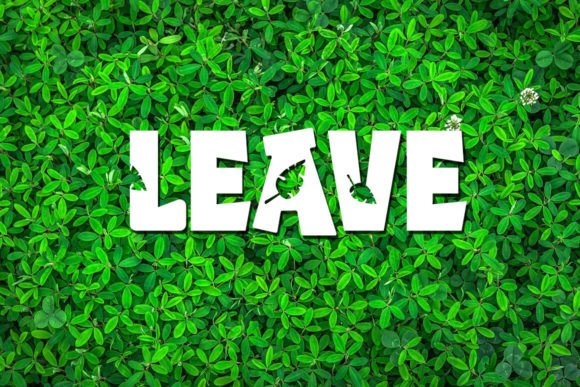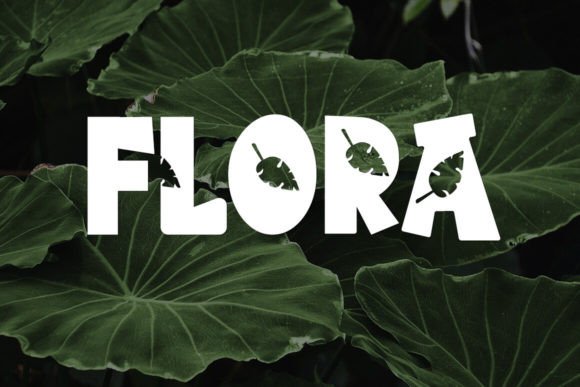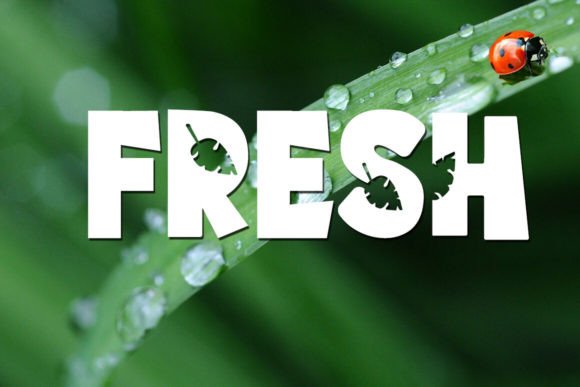
Introduction to Green Nature Font
Remember that moment when you stumbled upon the perfect font to elevate your design project? The one that just clicked, making your creative vision come to life? For many designers, that moment is exactly what they’re searching for, and we’re excited to share it with you. Say hello to the Green Nature Font, a delightful typeface that’s about to become your go-to design resource.
As a designer, you know how crucial it is to have a high-quality font that can bring your creative project to life. The Green Nature Font is just that – a beautifully crafted, crisp, and stylish typeface that’s perfect for a wide range of projects, from formal to casual. With its transparent background and fresh aesthetic, this font is a game-changer for designers who want to add a touch of gaiety to their designs.
Key Features of Green Nature Font
- High-quality, eco-friendly design resource ideal for creative projects, such as posters, flyers, and websites.
- Unique, hand-drawn design with a natural and earthy feel, perfect for branding and marketing materials.
- Features a transparent background, allowing for seamless integration with any background image or color.
- Designed to be highly legible and easy to read, making it perfect for body text and headings in creative projects.
Honest Review: Green Nature Font
I recently stumbled upon the Green Nature Font, and I have to say it’s been a great addition to my design resource collection. The font’s high quality is evident in its crisp lines and natural textures, making it perfect for creative projects that require a touch of organic elegance.
What works well about the Green Nature Font is its versatility. It can be used for a variety of purposes, from logos and branding to website headers and body text. The font’s transparent background also makes it easy to layer over other design elements, giving you endless possibilities for customization.
- ✨ High-quality design with crisp lines and natural textures
- ✨ Versatile font suitable for logos, branding, website headers, and body text
- ✨ Transparent background for easy layering
Overall, I’m impressed with the Green Nature Font. Its high quality, versatility, and transparent background make it a valuable design resource. While it may have some limitations, it’s definitely worth considering for your next creative project.
To get the most out of the Green Nature Font, use it on a transparent background to create a beautiful and high-quality design. Experiment with different font sizes and styles to add visual interest to your design.
The Green Nature Font is commonly used in eco-friendly and environmental designs, as well as in creative projects that require a natural and earthy feel. It’s also a great choice for designs that need a high-quality and professional font.
Q: What makes Green Nature Font a high-quality design resource?
Green Nature Font is a high-quality design resource due to its high-resolution glyphs, precise font metrics, and carefully crafted letterforms. These technical details ensure that the font renders beautifully in a variety of sizes and resolutions, making it ideal for use in creative projects such as logos, signage, and print materials.